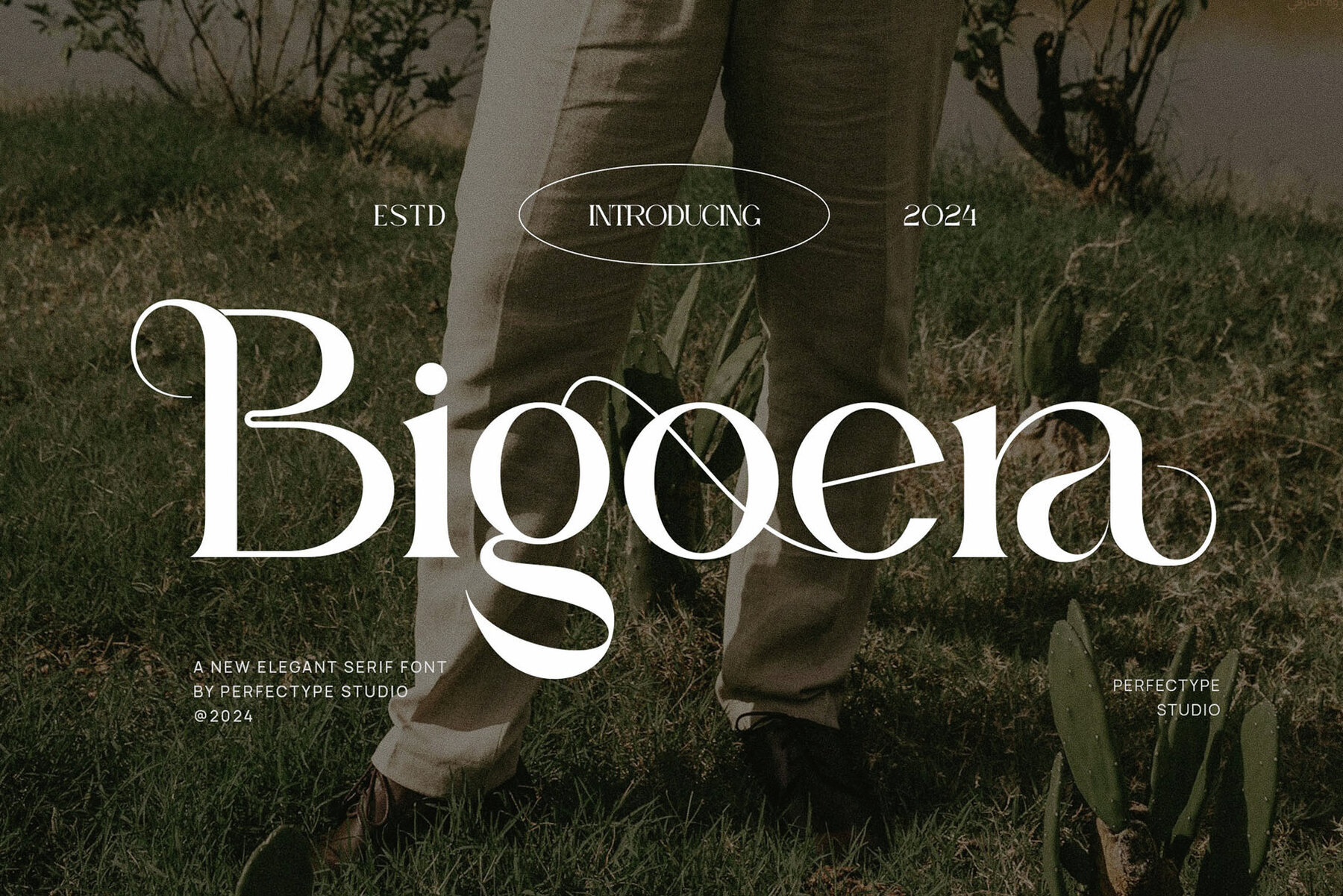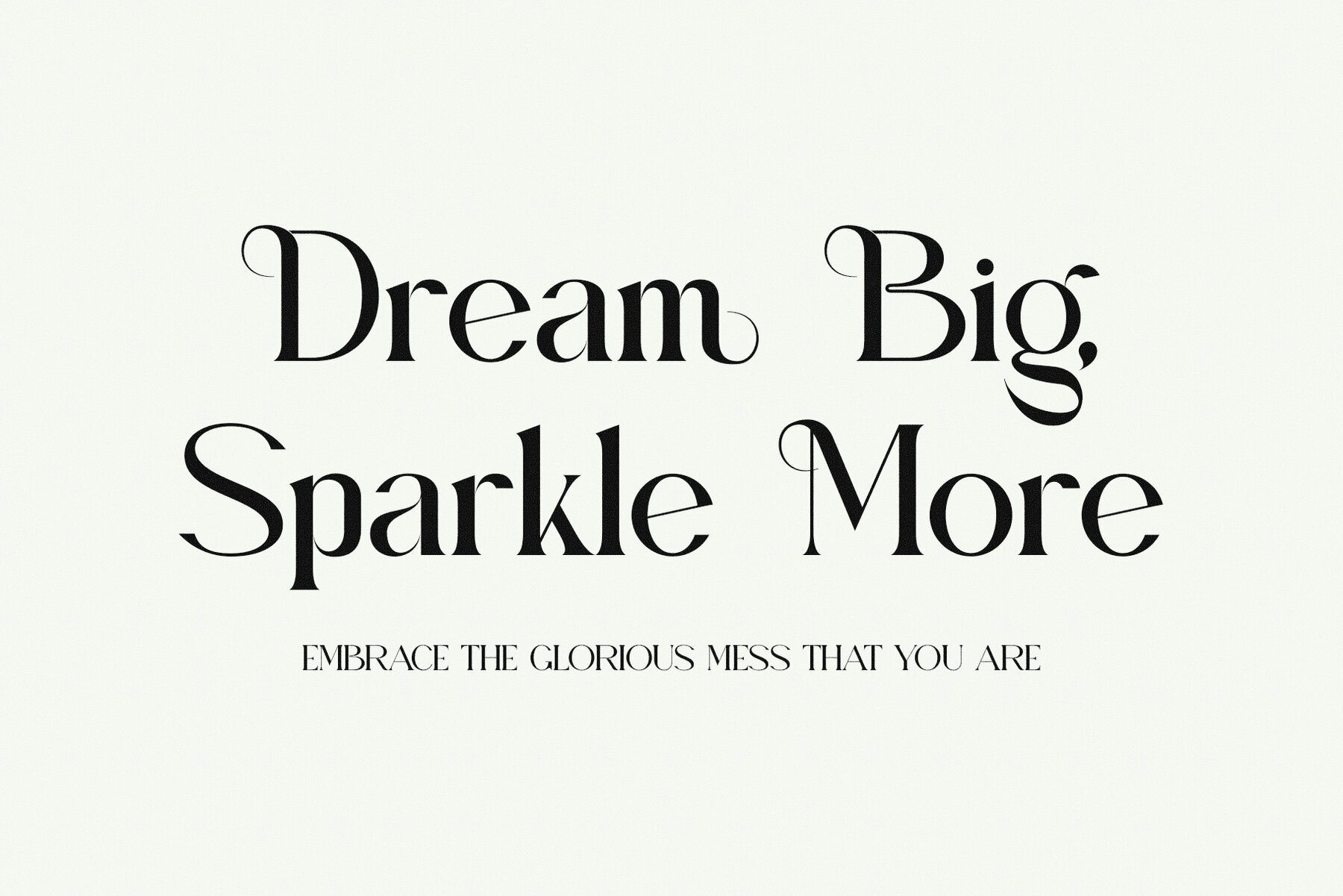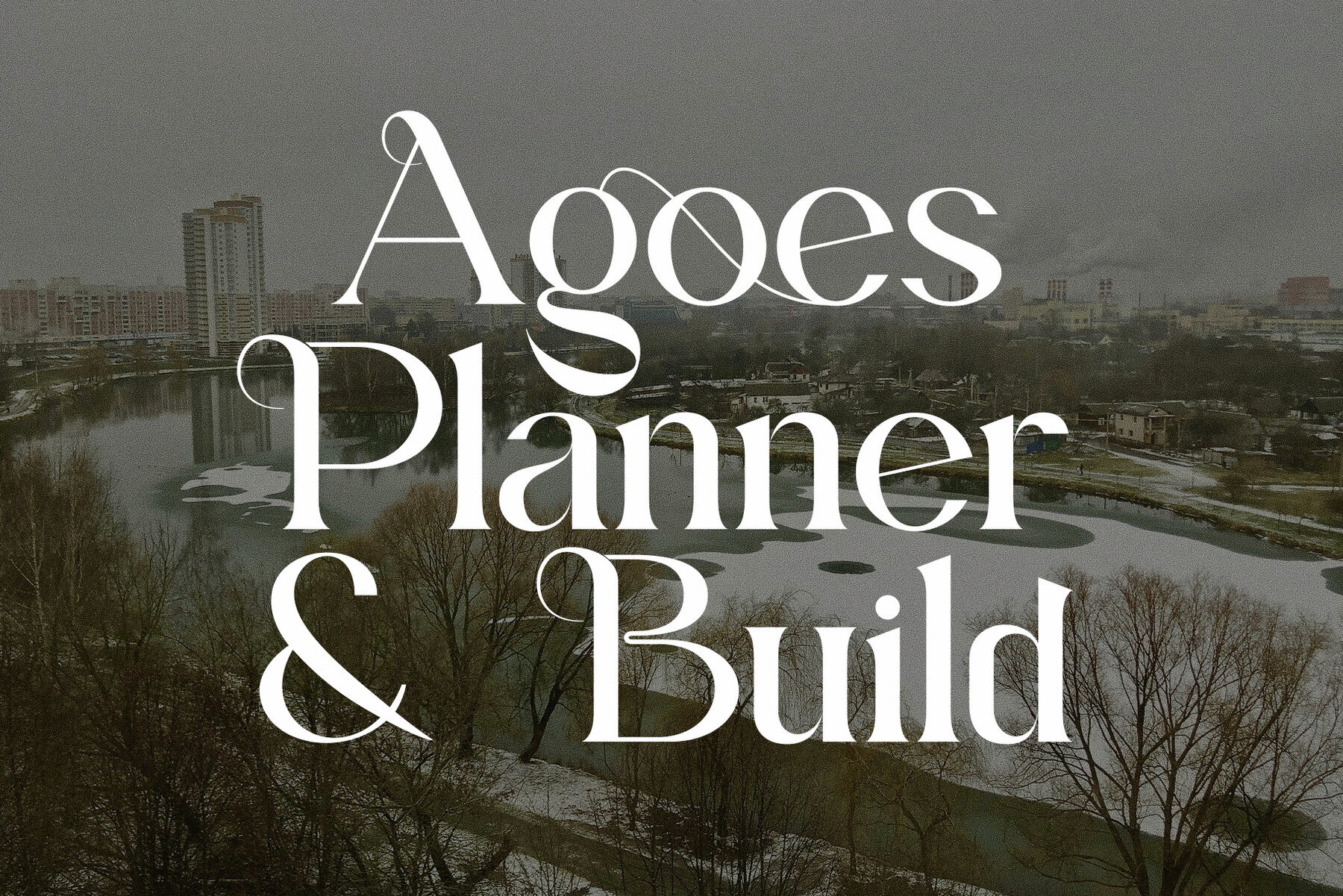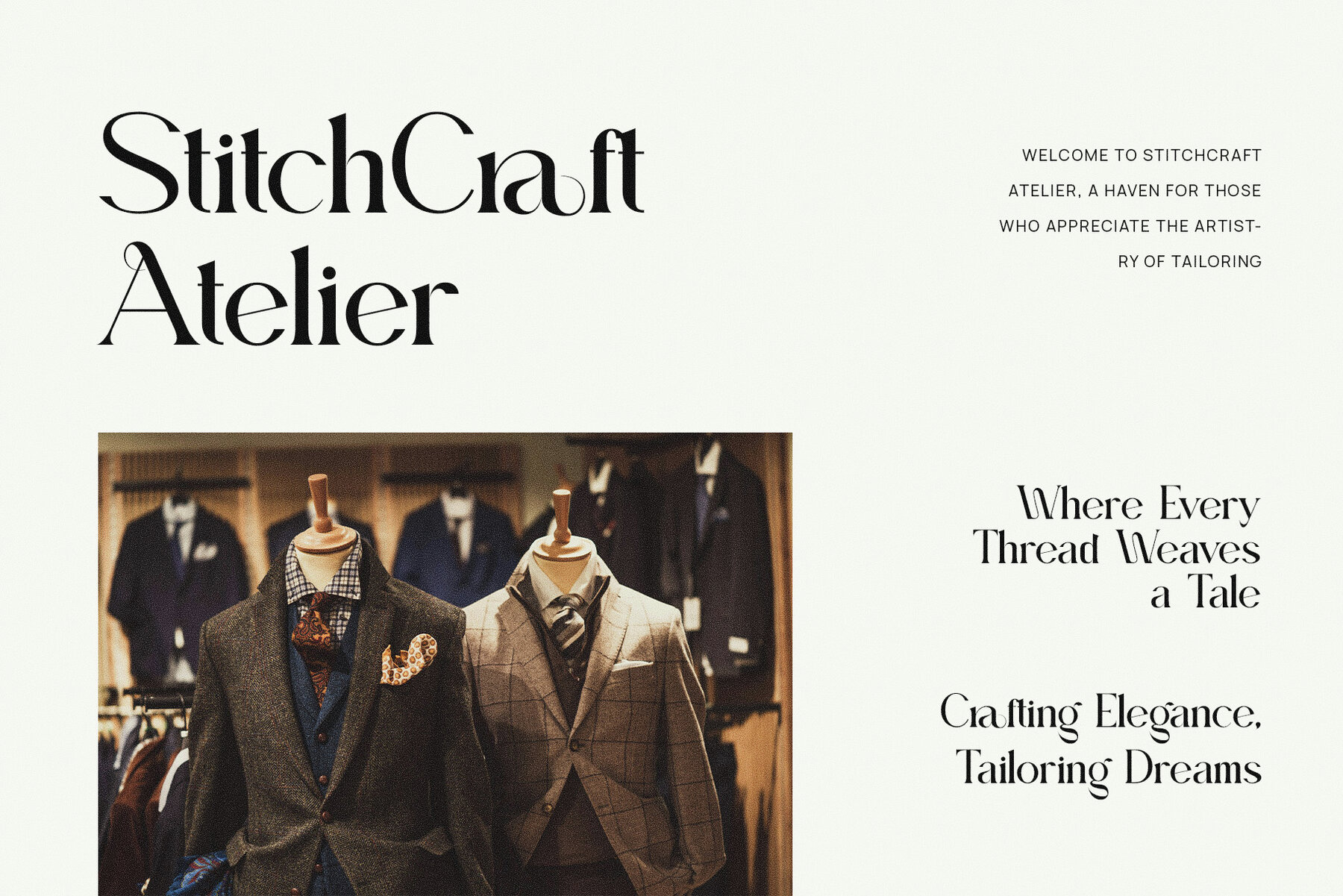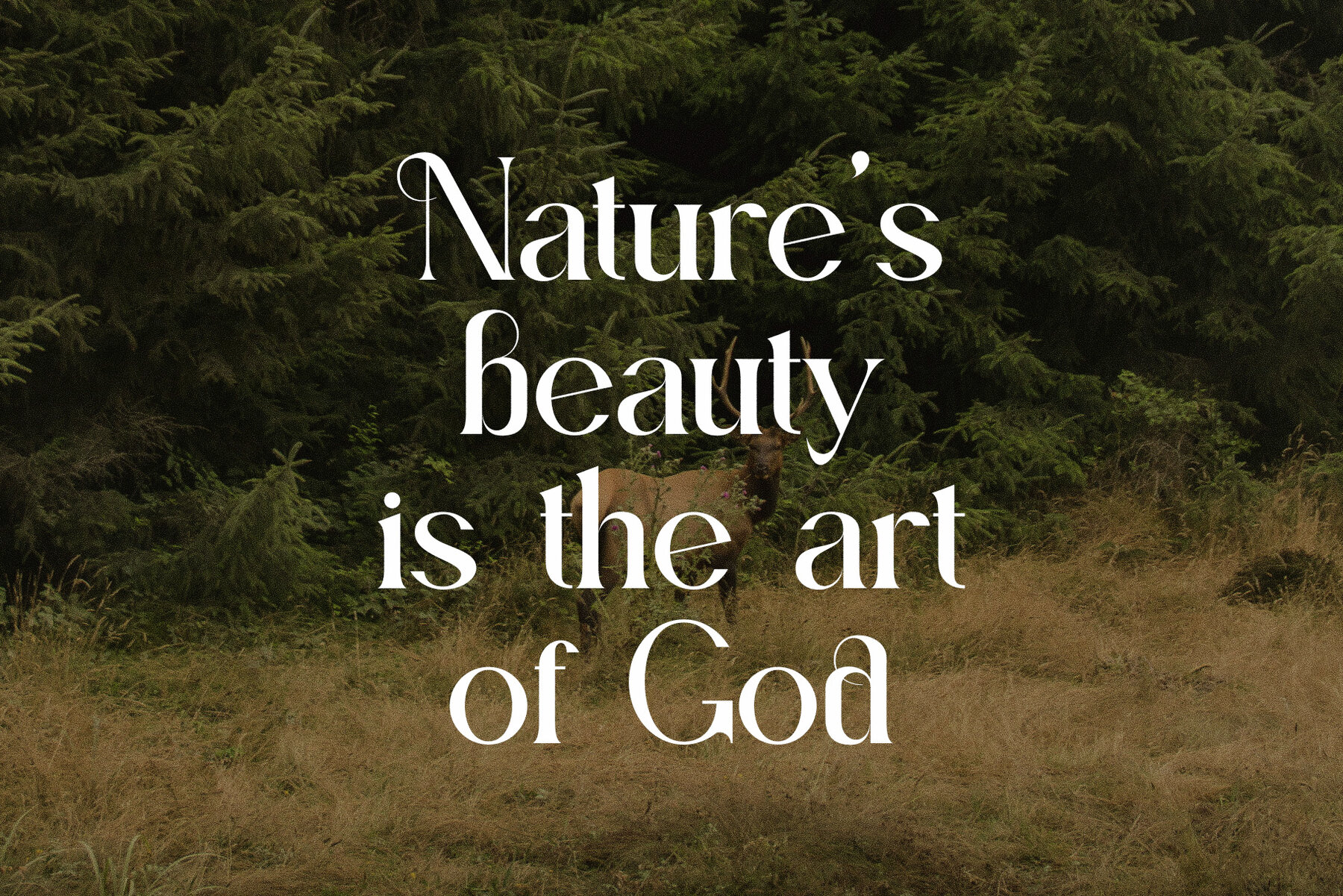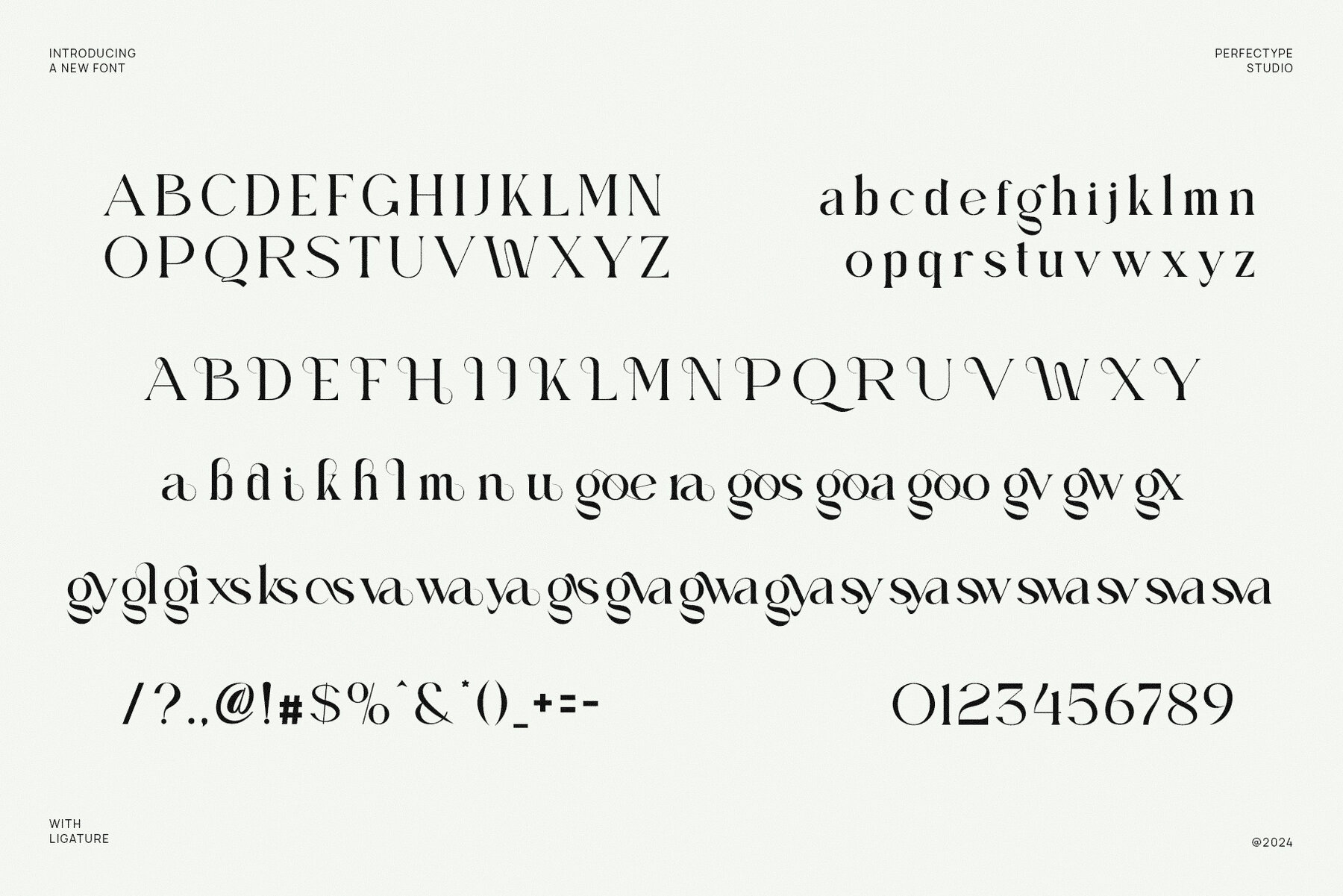
Bigoera Font
Bigoera
Bigoera Elegant Serif Font is a seamless blend of modern sophistication and timeless elegance, providing a refined touch to any creative project. Crafted with distinctive serifs and fluid curves, this typeface brings unparalleled versatility to luxury branding, stylish websites, sophisticated logos, elegant magazine layouts, and captivating advertisements. The unique letterforms, coupled with expertly designed ligatures and alternate characters, allow for endless customization, ensuring your typography stands out with both elegance and precision.
This font is particularly suited for industries where class and quality are paramount, such as fashion, beauty, luxury products, boutiques, and fine dining. Bigoera's exquisite design enhances high-end logos, editorial spreads, and upscale website designs, imbuing them with a sense of prestige and style. Ideal for both print and digital media, Bigoera offers the perfect balance of readability and artistic flair, making it a standout choice for any project that demands a touch of luxury.
Bigoera Elegant Serif Font is an essential tool for designers aiming to create memorable branding experiences. Its modern yet timeless aesthetic makes it the perfect asset for those who seek to leave a lasting impression in their design work.